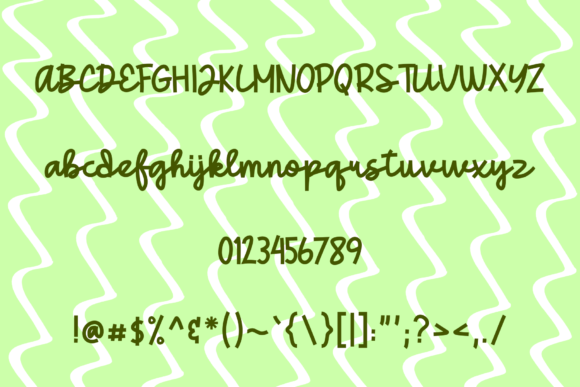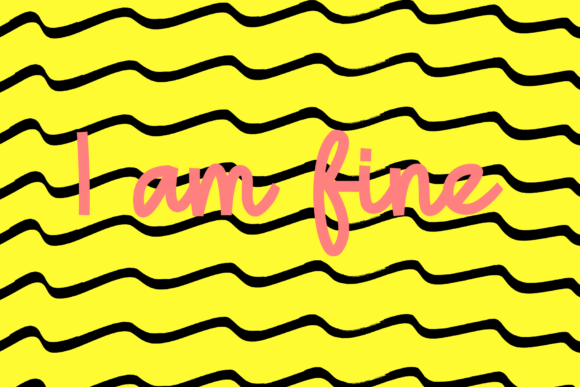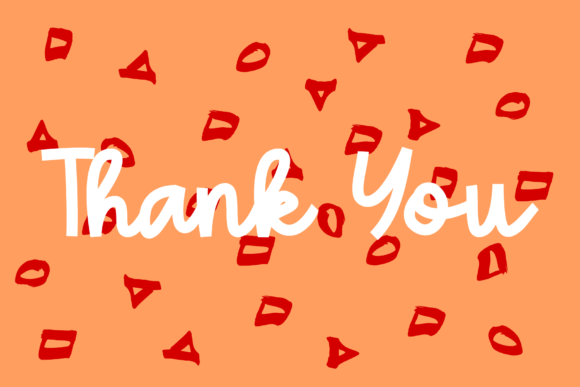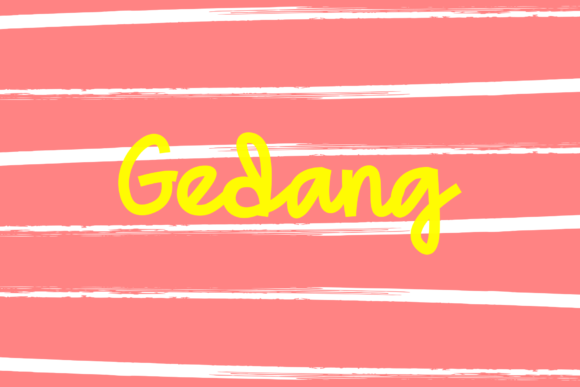
Gedang Font: The Fun and Playful Typeface for Creative Projects
The Gedang font is a fun and playful typeface that has been gaining popularity among designers and crafters. Its unique and quirky design makes it perfect for a variety of creative projects, from logos and quotes to social media headers and more. In this article, we’ll take a closer look at the Gedang font, its features, and how you can use it to add a touch of personality to your designs.
What is the Gedang Font?
The Gedang font is a display font that is designed to be eye-catching and engaging. It features a playful and whimsical design, with rounded edges and a bouncy feel. The font is perfect for designers who want to add a touch of fun and personality to their designs. Whether you’re creating a logo, a social media header, or a quote graphic, the Gedang font is sure to make your design stand out.
Features of the Gedang Font
The Gedang font has a number of features that make it a great choice for creative projects. Some of its key features include:
- Playful design: The Gedang font has a unique and playful design that is sure to grab attention.
- Rounded edges: The font features rounded edges, which give it a friendly and approachable feel.
- Bouncy feel: The font has a bouncy feel that makes it perfect for designs that need to be energetic and engaging.
- Versatile: The Gedang font is versatile and can be used for a variety of creative projects, from logos and quotes to social media headers and more.
How to Use the Gedang Font
The Gedang font is easy to use and can be incorporated into a variety of creative projects. Here are some ideas for using the Gedang font:
- Logos: The Gedang font is perfect for logos that need to be fun and playful. Use it to create a logo for a children’s brand, a toy company, or a business that wants to appear friendly and approachable.
- Quotes: The Gedang font is great for quotes that need to be eye-catching and engaging. Use it to create quote graphics for social media, a blog, or a website.
- Social media headers: The Gedang font is perfect for social media headers that need to be fun and playful. Use it to create a header for a Facebook page, a Twitter profile, or an Instagram account.
- Crafting projects: The Gedang font is also great for crafting projects, such as scrapbooking, card making, and DIY signs.
Tips for Using the Gedang Font
Here are some tips for using the Gedang font:
- Use it sparingly: The Gedang font is a display font and should be used sparingly. Use it for headings, titles, and other design elements that need to be eye-catching.
- Pair it with a simple font: The Gedang font is playful and energetic, so it’s best to pair it with a simple font that will provide contrast.
- Experiment with colors: The Gedang font looks great in a variety of colors, so don’t be afraid to experiment and find the perfect color for your design.
| Font Name | Gedang Font |
| Author | zuzulgo studio |
The Gedang font is a fun and playful typeface that is perfect for creative projects. Its unique design and versatile nature make it a great choice for designers and crafters who want to add a touch of personality to their designs. Whether you’re creating a logo, a quote graphic, or a social media header, the Gedang font is sure to make your design stand out. So why not give it a try and see how it can add a touch of fun and playfulness to your designs?